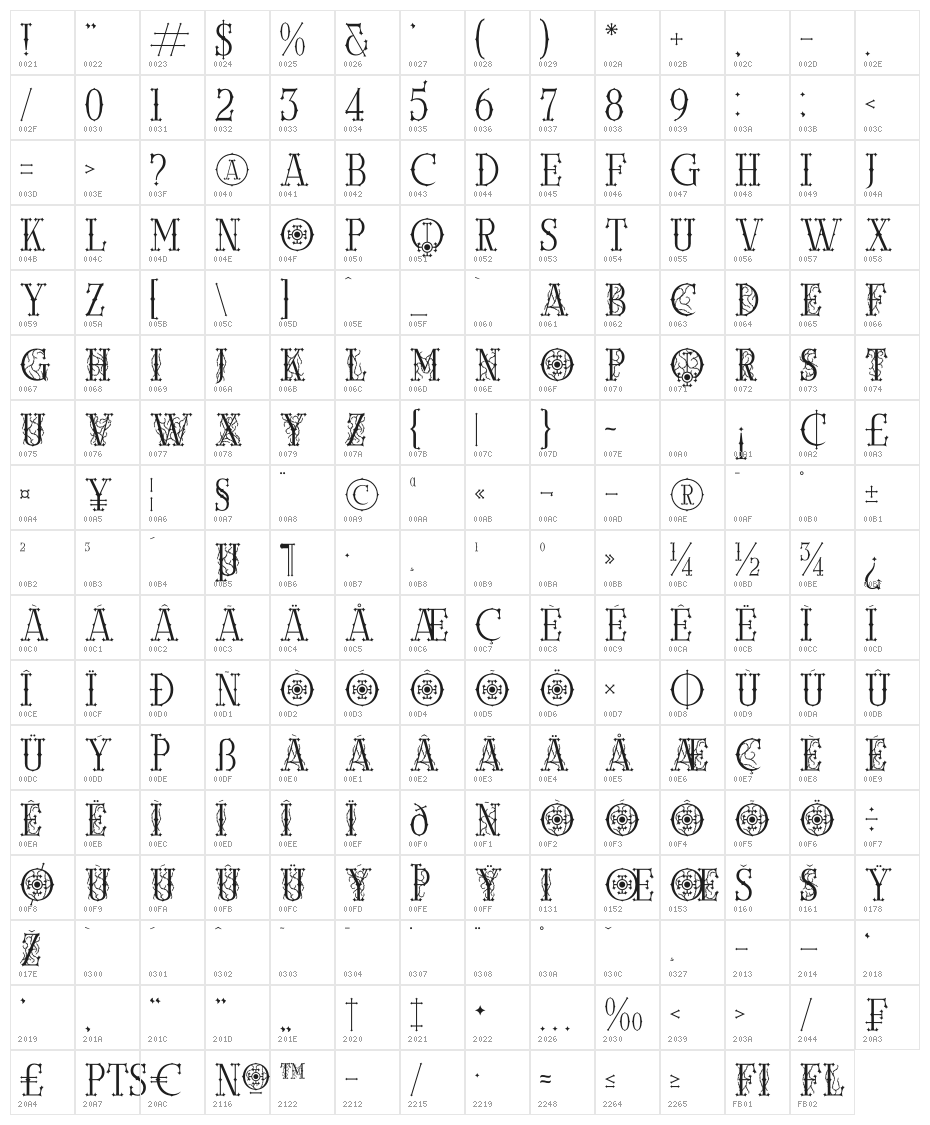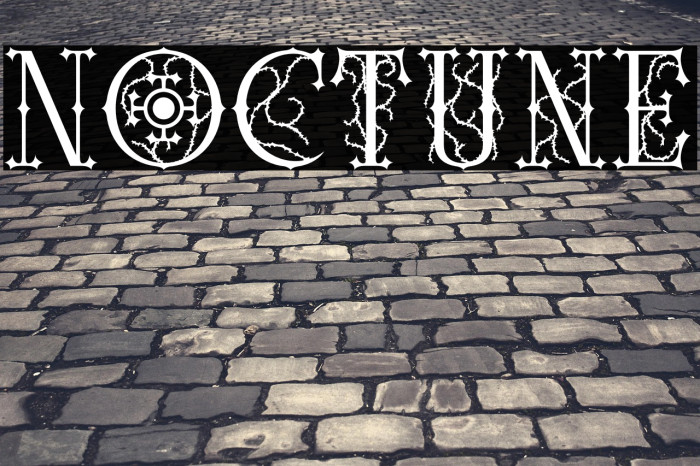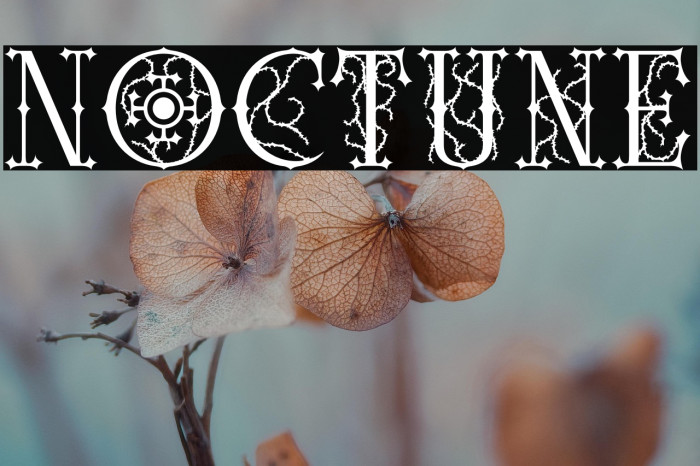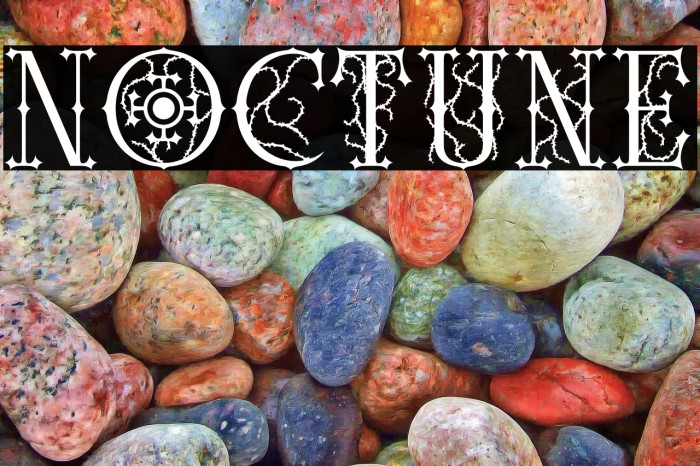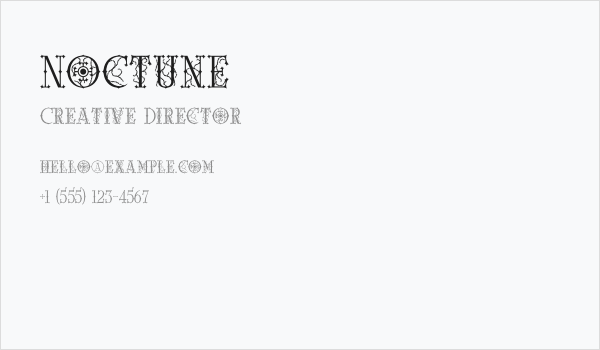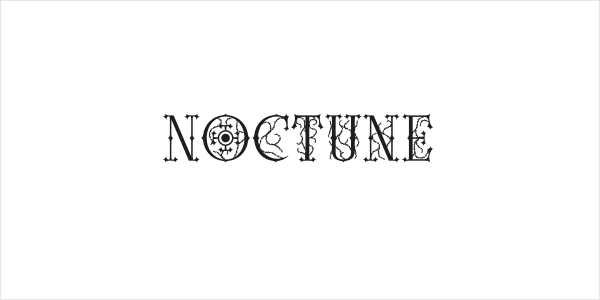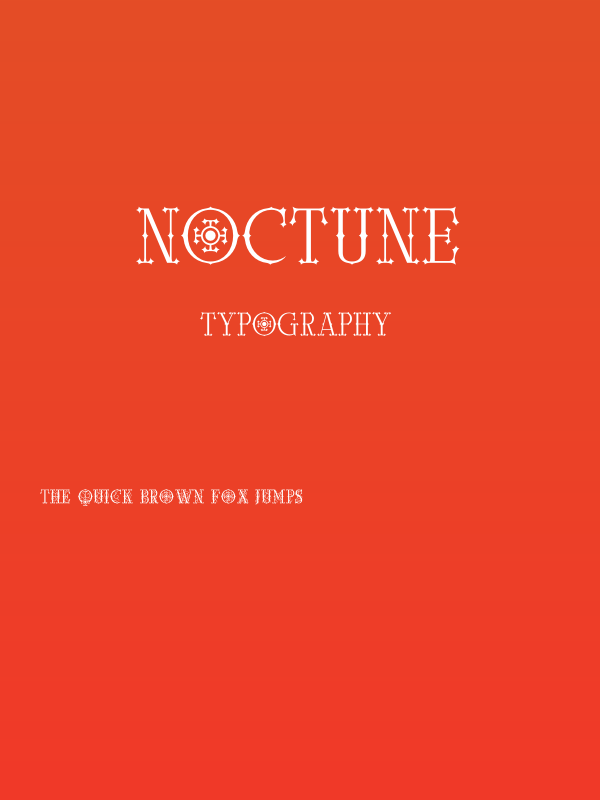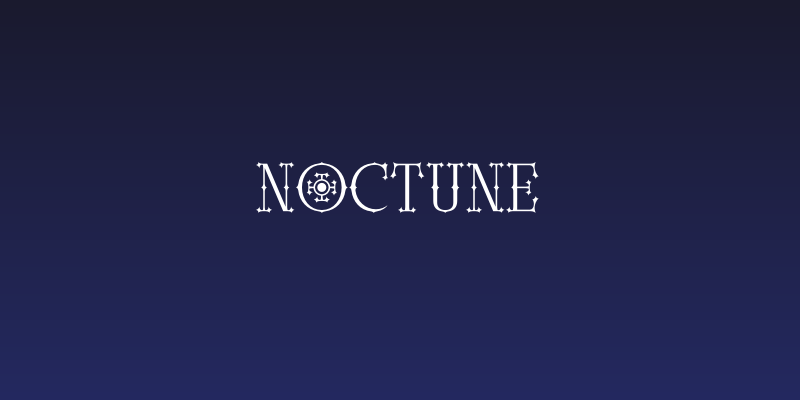
Noctune Font
Noctune Description
This font features a unique and intricate design with decorative elements that resemble thorns or vines entwined around each character. The uppercase and lowercase letters are consistent in style, with sharp, pointed serifs and elaborate detailing that gives a gothic or mystical appearance. The numbers and special characters maintain this theme, ensuring a cohesive look across all glyphs. The overall aesthetic is both striking and ornate, making it suitable for projects that require a dramatic and eye-catching typeface.
| Overall Style | Gothic, Decorative |
| Proposed Projects | Ideal for fantasy book covers, gothic-themed event invitations, or branding for alternative fashion lines. |